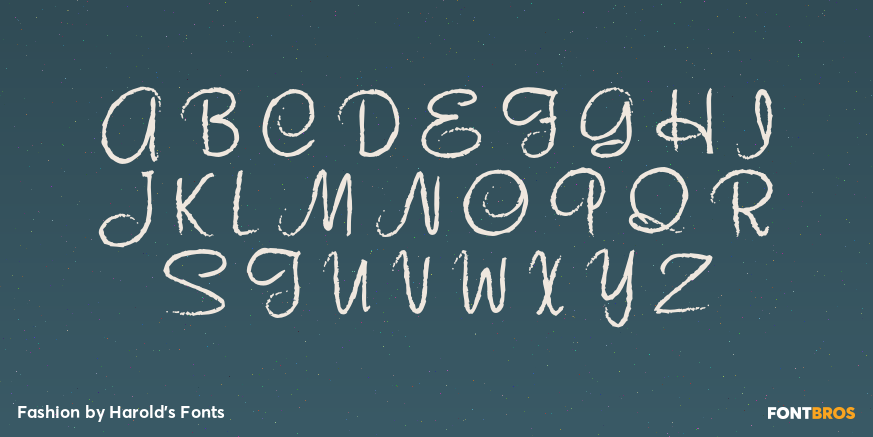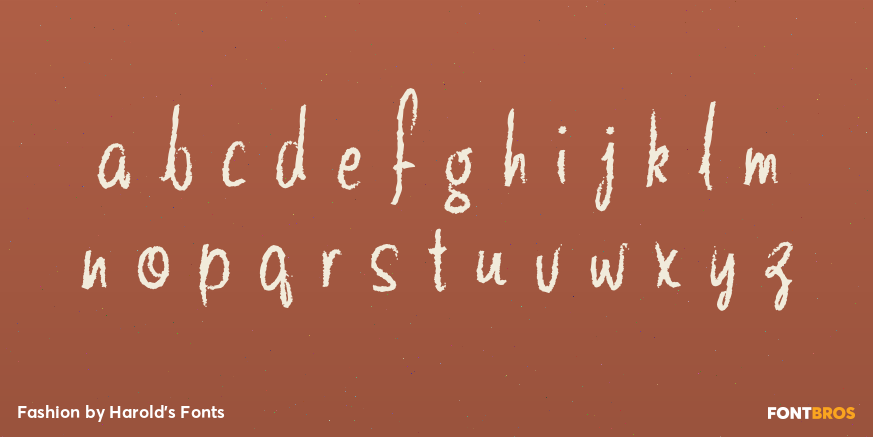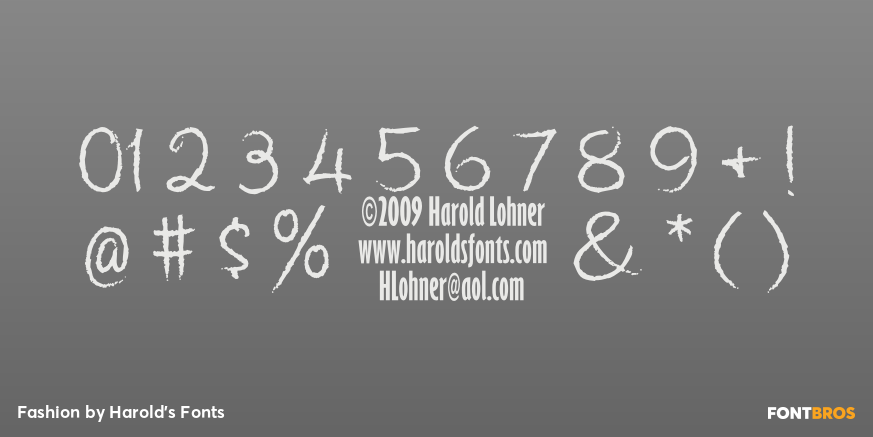
Fashion
Font Family by Harold's Fonts
FASHION BRUSH and FASHION MARKER are fraternal twins. The bold, expressive letterforms of each were inspired by woodtype example of Thalheimers department store lettering from the 1940s. FASHION BRUSH has a rough, art brush texture; FASHION MARKER has the smooth line of a Sharpie.
I worked from examples in the collection of Virginia Commonwealth University, Richmond, VA. According to their information, “The type follows handlettering styles of the 1940s and is unique compared to 20th-century script typefaces in metal.”
Fashion Marker
Fashion Brush